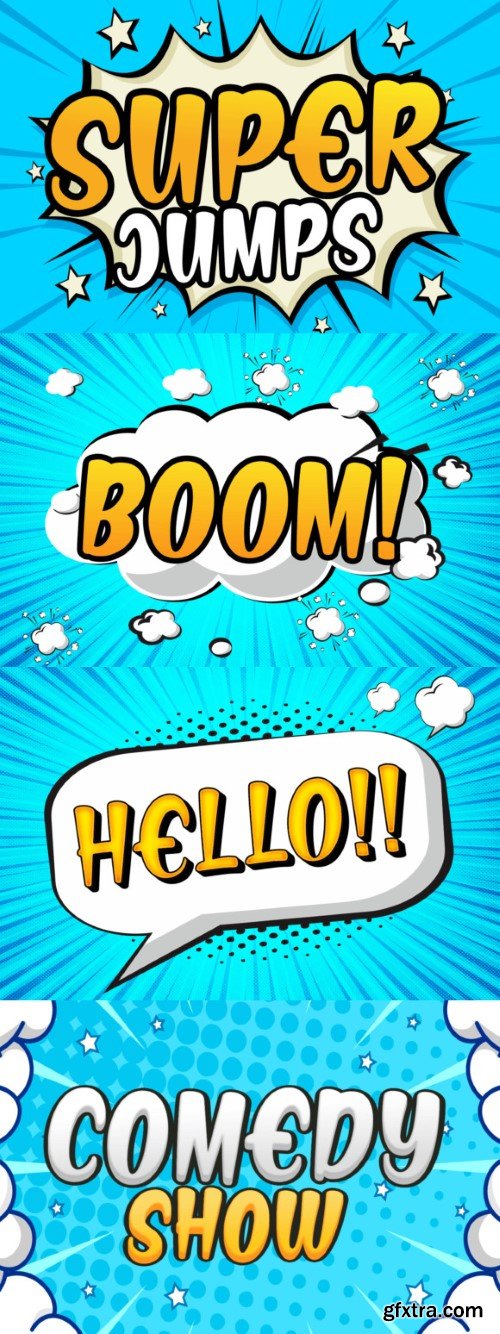
Super Jumps Font
Super Jumps is a charming and stylish display font. Sporting a handwritten aesthetic, this lovely typeface has the potential to take your designs to the next level! Use it to add a touch of joy and friendliness to any design idea you may have, and you will love the results.